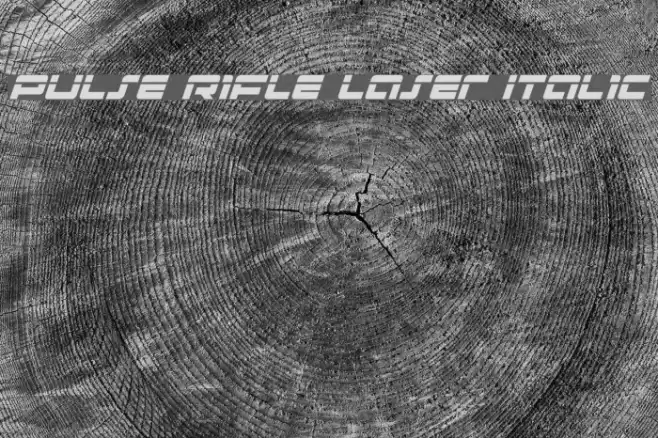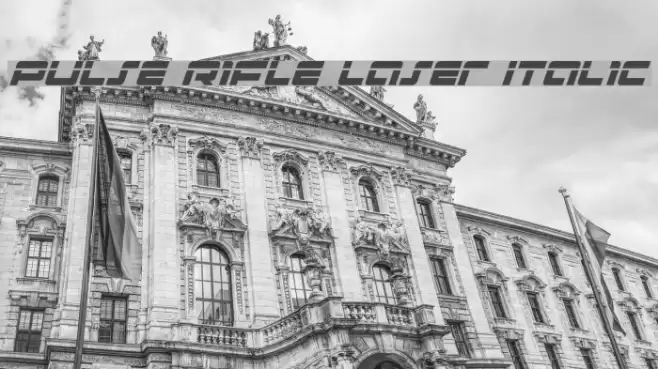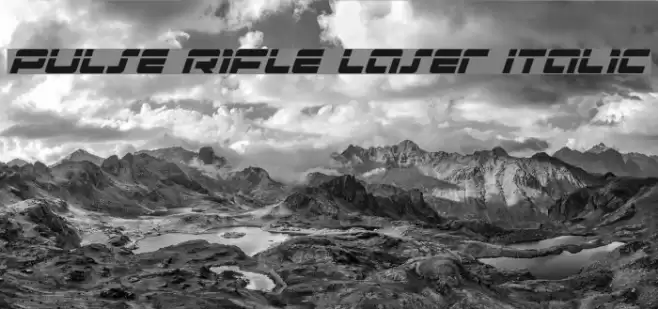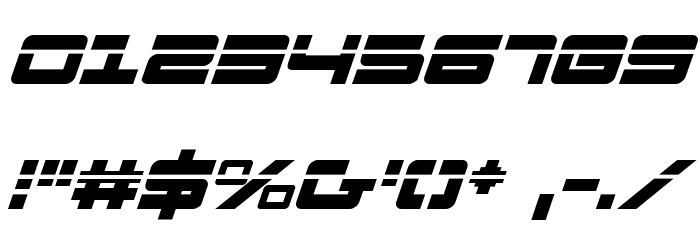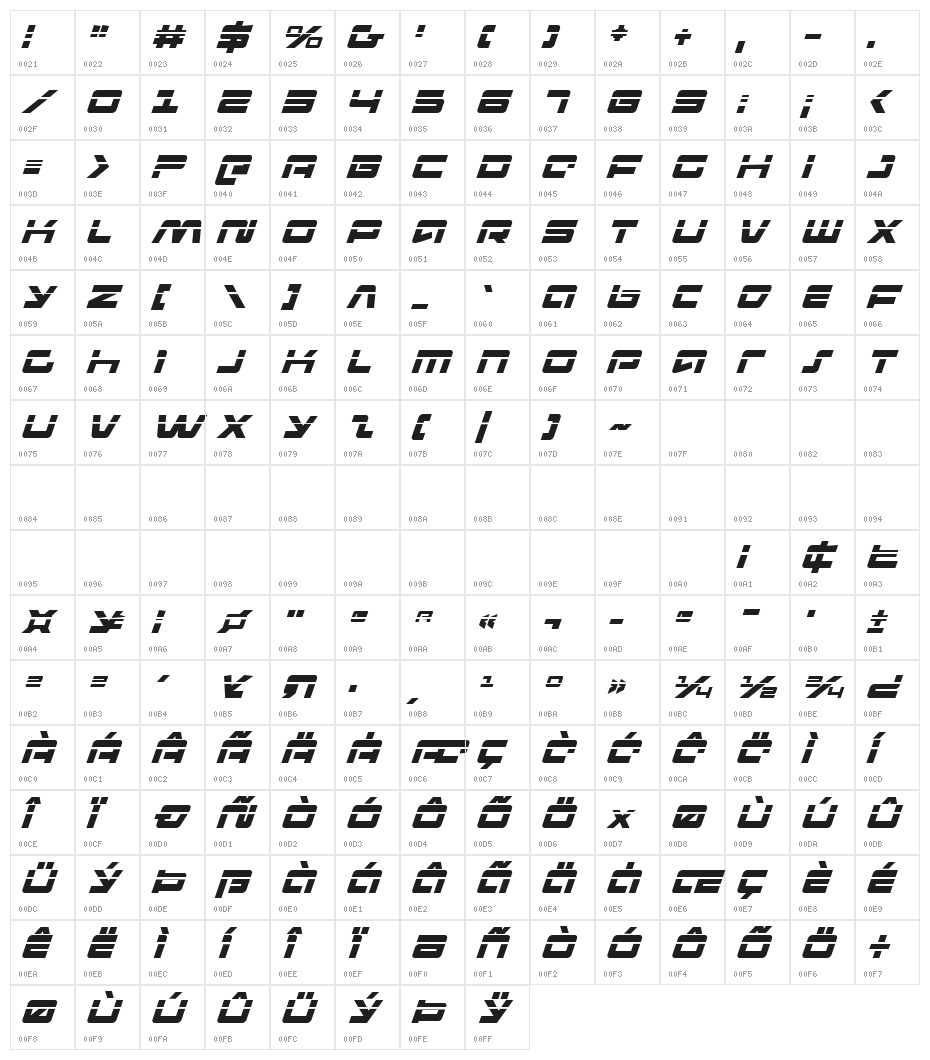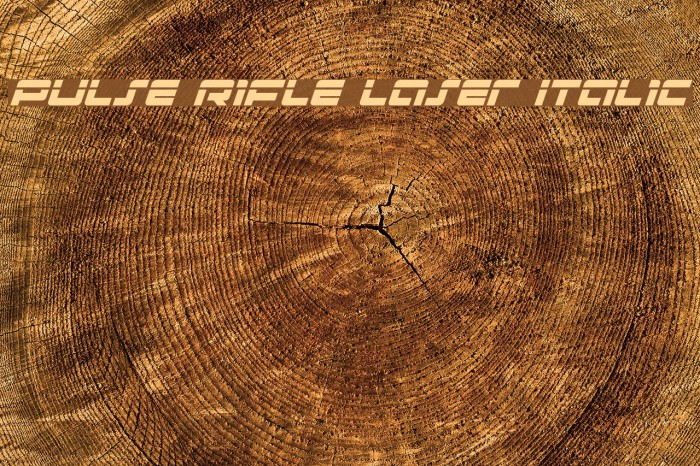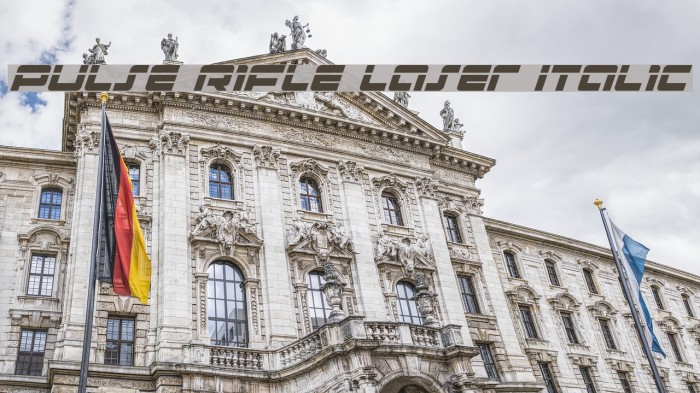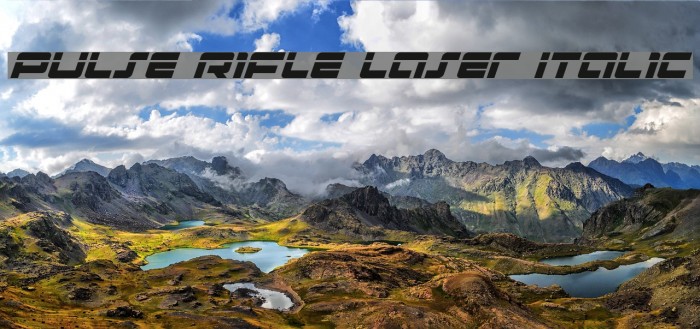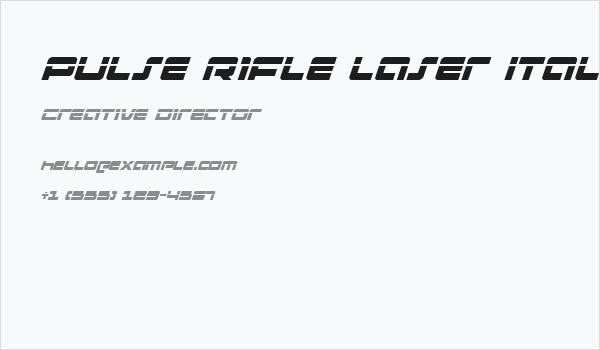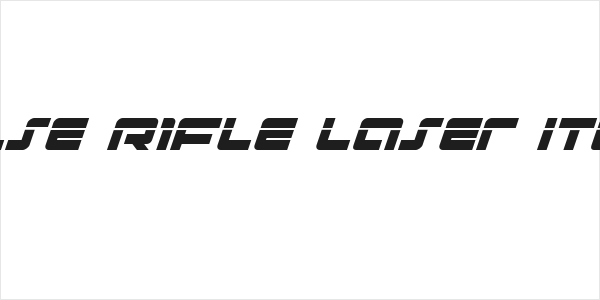
Pulse Rifle Laser Italic Font
Pulse Rifle Laser Italic Description
This font features a futuristic and angular design, characterized by sharp edges and a sleek, italicized form. The letters are bold and dynamic, with a distinct slant that gives them a sense of motion and speed. The geometric shapes and clean lines create a modern and high-tech appearance, making it ideal for projects that require a cutting-edge aesthetic. The font includes a full set of uppercase and lowercase letters, numbers, and a variety of special characters, all maintaining the same bold and angular style.
A futuristic, bold, and italicized font with sharp, angular design.
- Proposed Projects: Ideal for sci-fi themed projects, video game titles, tech branding, and futuristic posters.